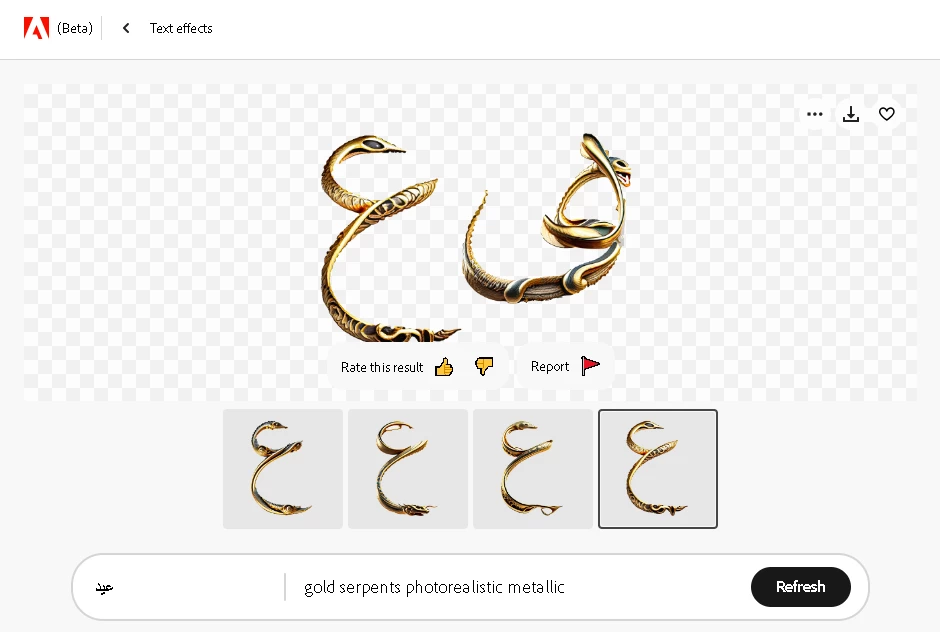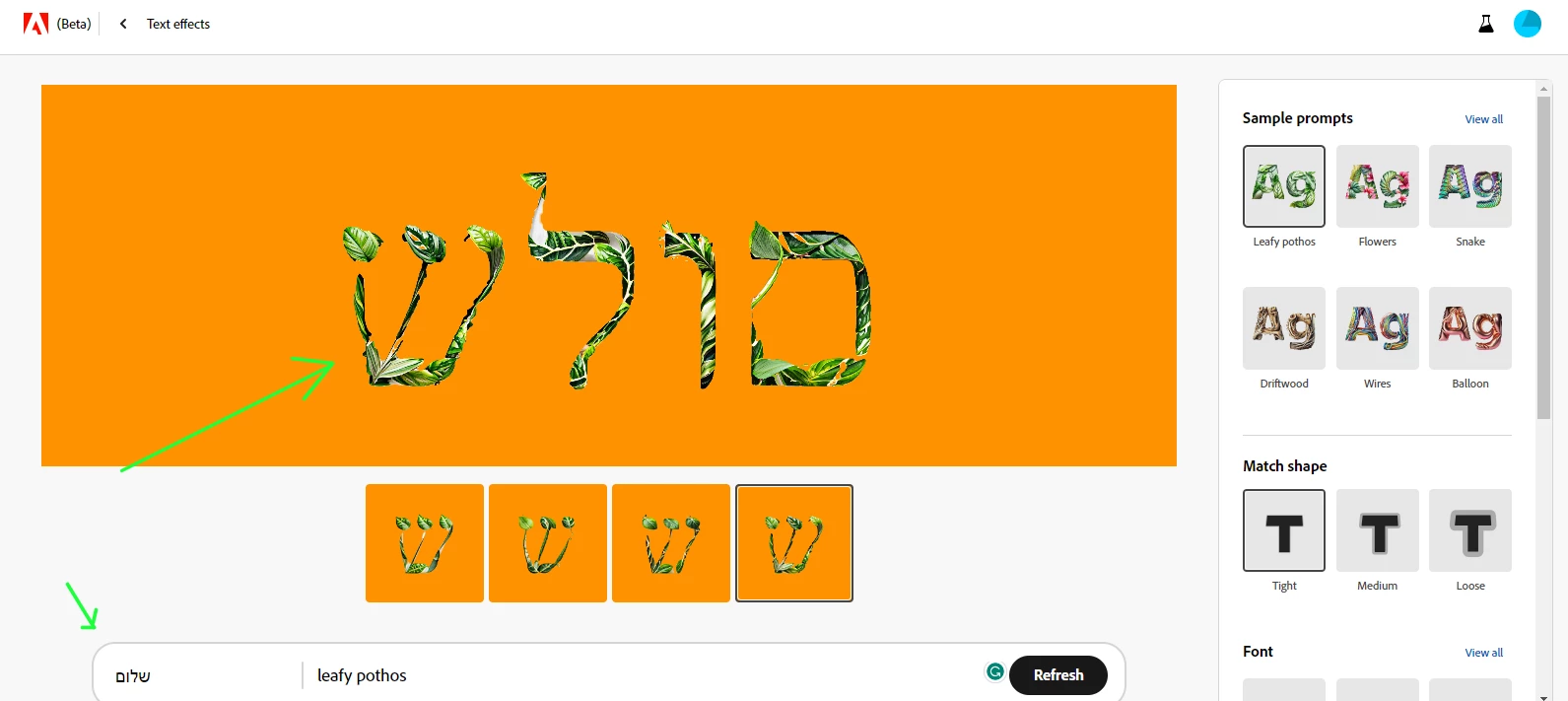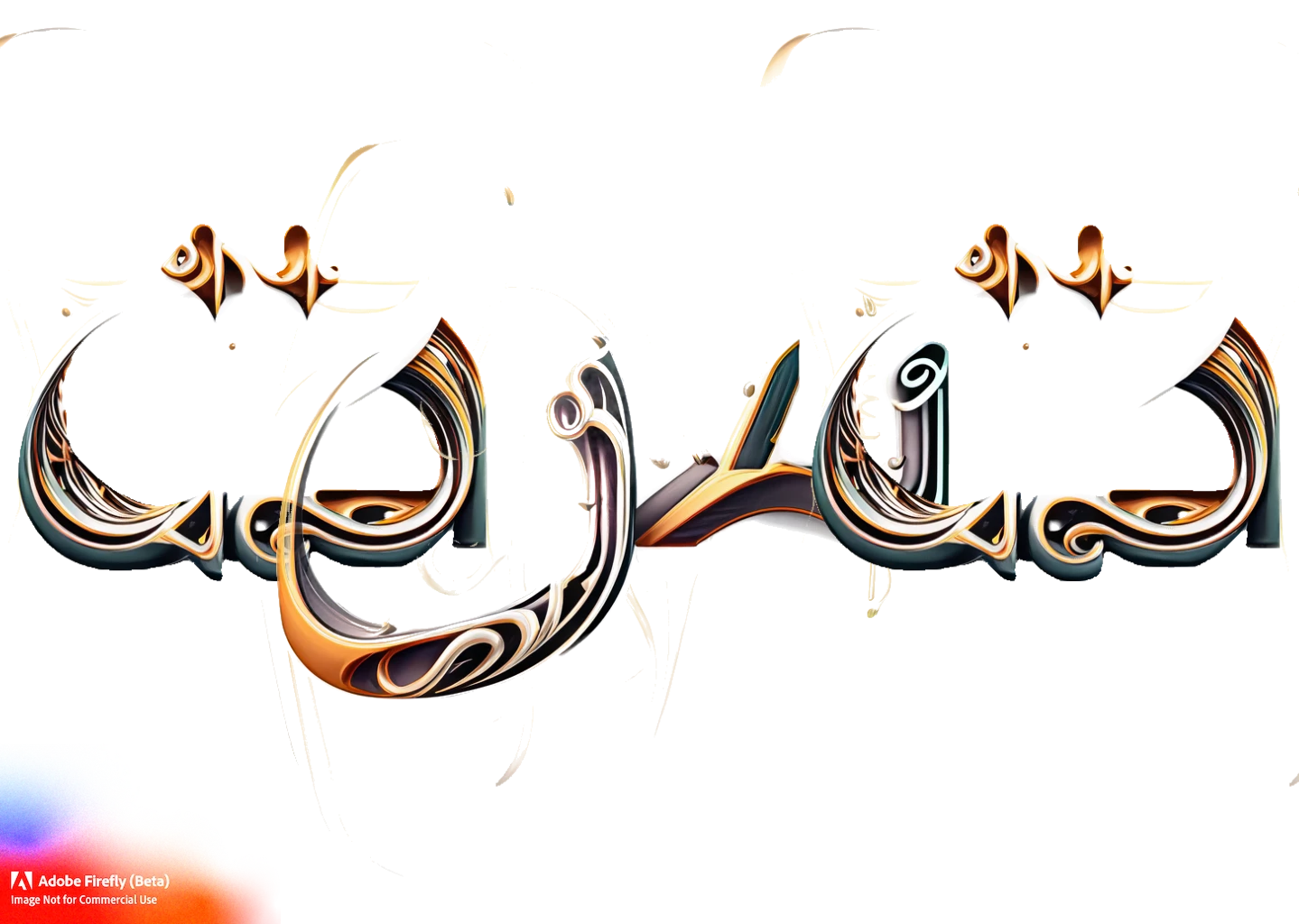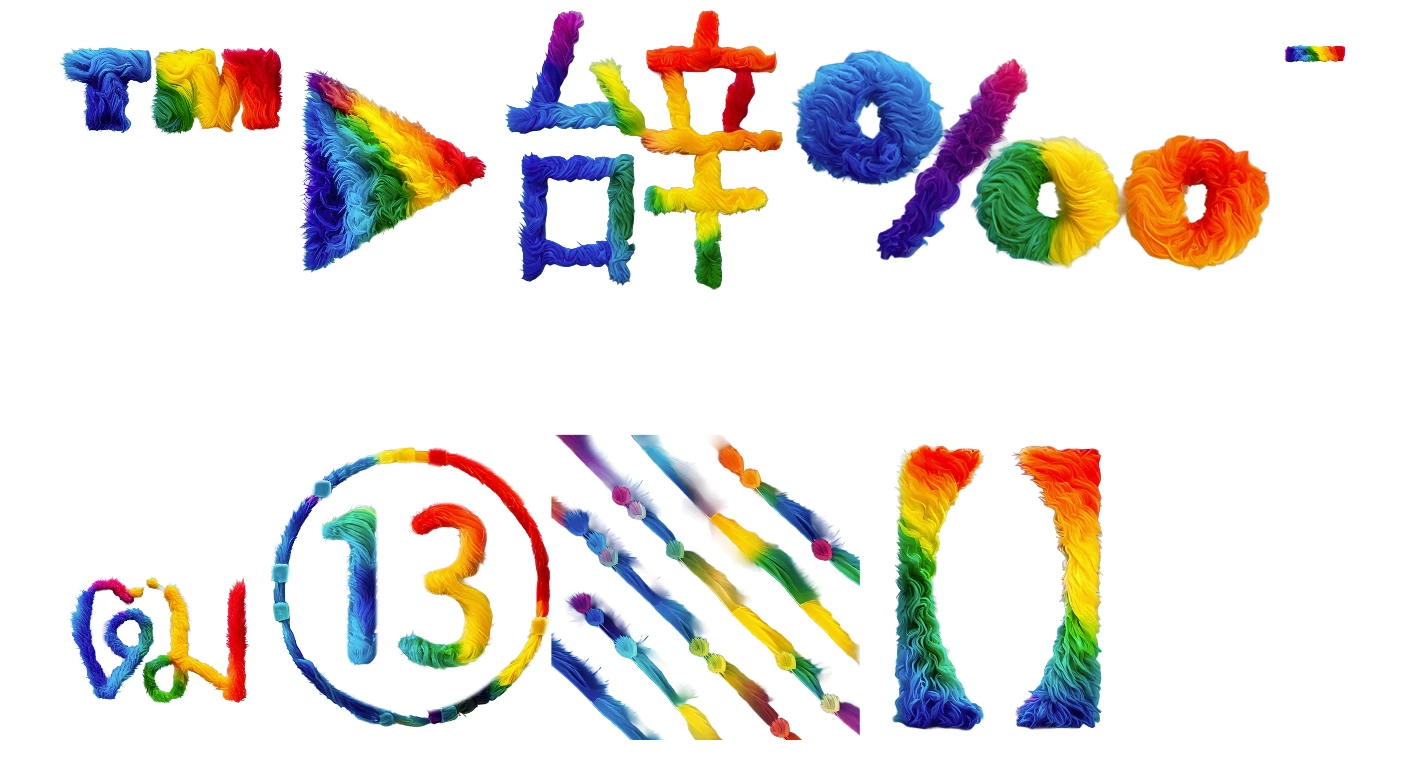
I am writing in Japanese using the automatic translation function.
I've only used it a little, but I'll write what I felt.
1. I was impressed that it already supports Japanese input.
Unfortunately, there are no Japanese-compatible fonts in the options, so all the characters are thin. I think it would be perfect to be able to select a font that supports Japanese.
2. Characters may overlap and be displayed. I thought it would be convenient if I could download it as a PSD layered for each character. This is not a high priority because it can be solved by generating each character.
日本語で自動翻訳機能を使って書いています。
少し使っただけですが感じたことを書かせていただきます。
1.既に日本語の入力にに対応していて感動しました。
ですが残念なことに、選択肢の中に日本語対応のフォントがないために、全て細い文字になってしまいます。日本語に対応したフォントを選択できると完ぺきだと思います。
2.文字と文字が重なって表示されてしまう場合があります。一文字ごとにレイヤー分けされたPSDとしてダウンロードできたりすると便利だと思いました。これに関しては一文字ごとにジェネレートすれば解決可能なので優先順位は高くはありません。
Many Unicode characters have been added to Text Effects. Not every character, but more than was available when text effects was released.
There is a very large community and the fonts for representing languages of Indian customers should be represented. I have put two requests frommy end being Devanagari and Kannada. However, therew are plenty of other Indian languages with quite a large customer base.
which shoould be represented to.
The Firefly doesn't know to identify a right-to-left language and shows the letters in a mirror order.
Also, please add a simple and Bald Hebrew font which we could see the effects in Firefly the best (Same as in the text in the picture attached for example).
Example fonts are (from google):
Noto Sans Hebrew
Secular One
Suez One
Rubik Spray Paint
As the way the fonts are today, it is very unuseable for Hebrew speakers to use this service. the words come out as not understandable...
In writing urdu alphabets its starts from right hand unlike english and the alpabets join together to form a combine composition thats look different from that original alphabets, so the point is, these alphabets are not joining together they are separate. plz kindly resolve this issue.
It's really amazing but if can support Arabic with these test effects it would be awesome
I would like you to add more fonts/add fonts that support letters with diacritics such as ň, č, etc., as well as symbols. Thank you!
adobe firefly Text effects on RTL language (such as Persian, Arabic and ...) not work correctly